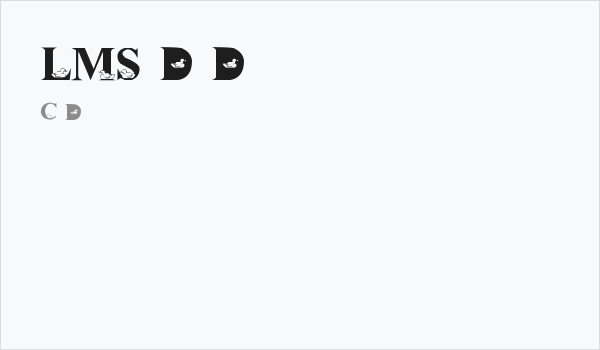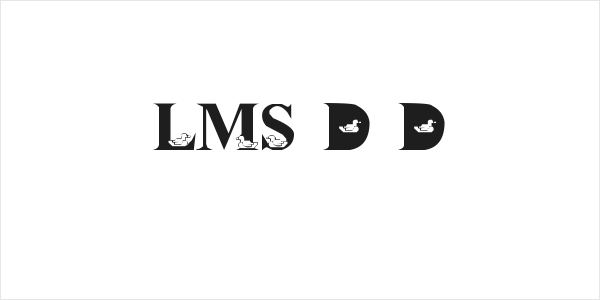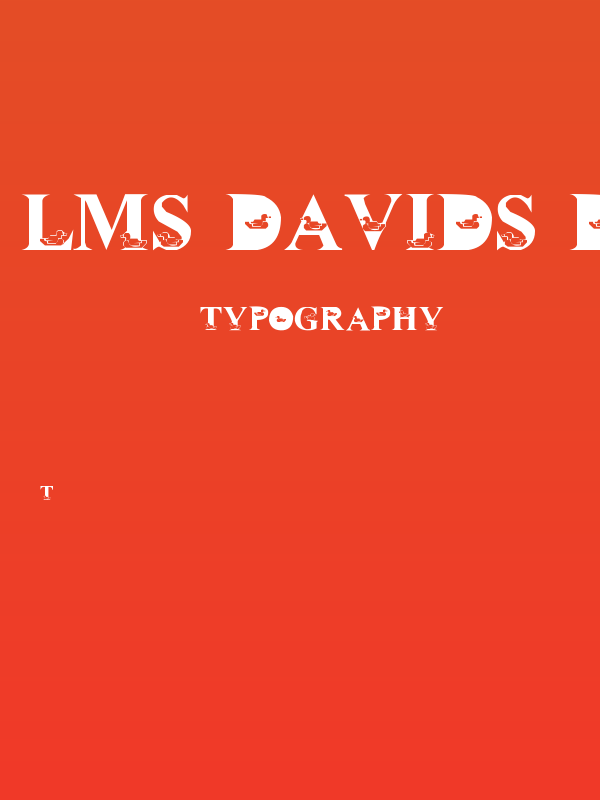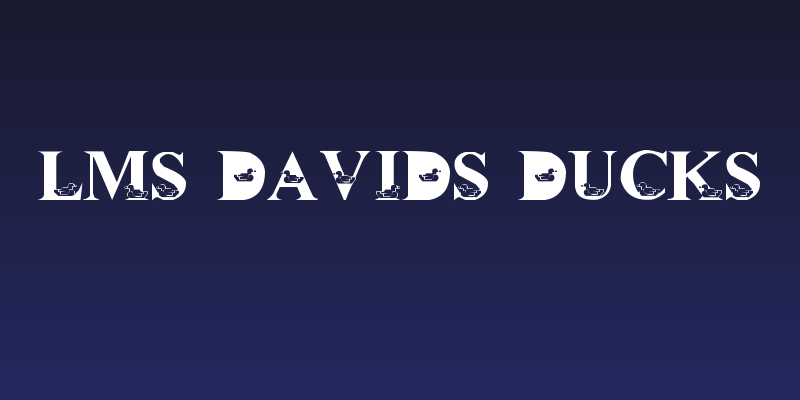
LMS David's Ducks Font
LMS David's Ducks Description
This decorative font features a playful and whimsical design, incorporating small duck illustrations within the negative space of each letter. The uppercase letters are bold and have a classic serif style, yet the inclusion of the ducks adds a unique and charming twist. The font maintains a consistent weight and width throughout, ensuring readability while also providing a distinctive visual appeal. The ducks are cleverly integrated, making this font ideal for projects that require a touch of fun and creativity.
Proposed ProjectsIdeal for children's books, playful branding, greeting cards, and whimsical posters.